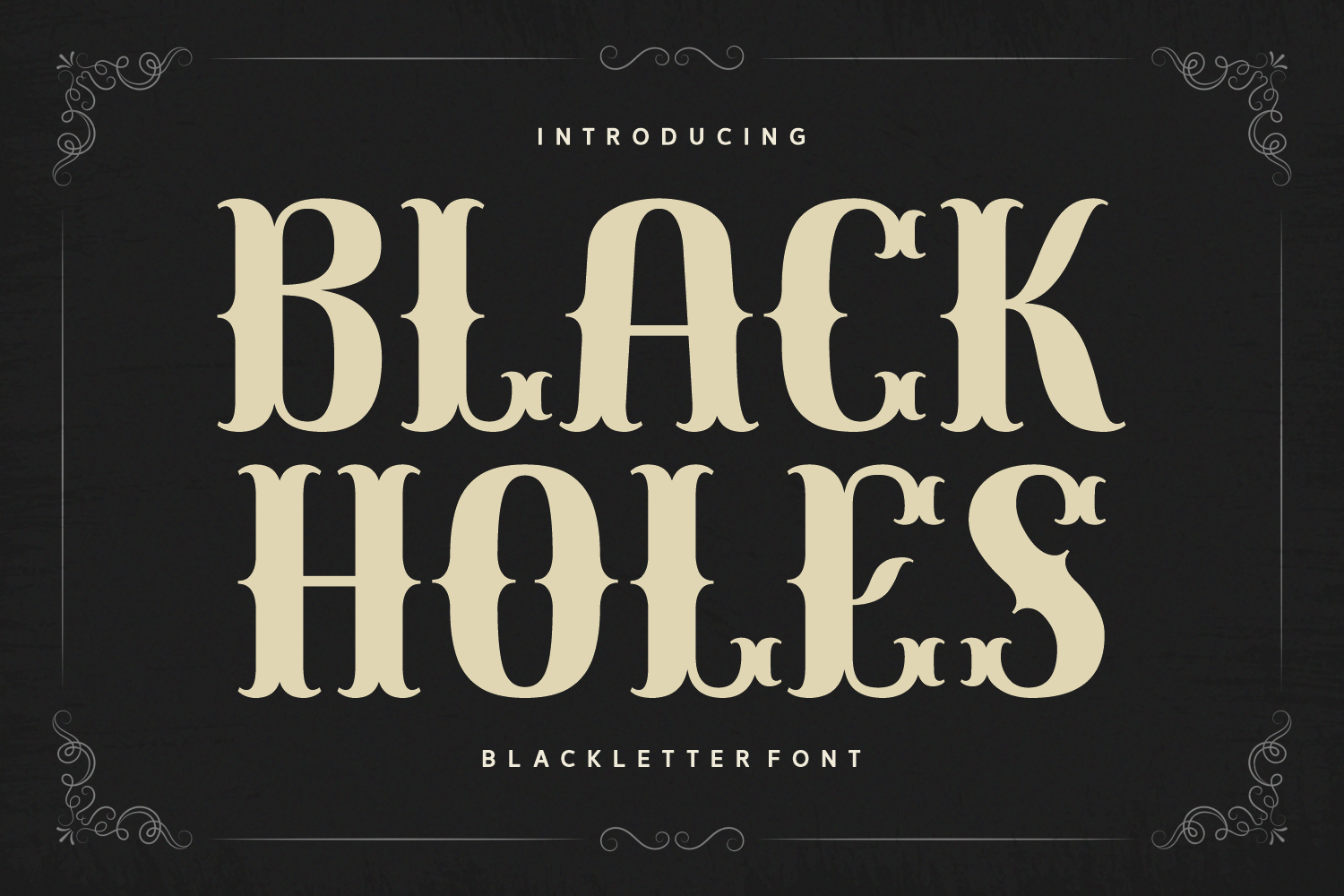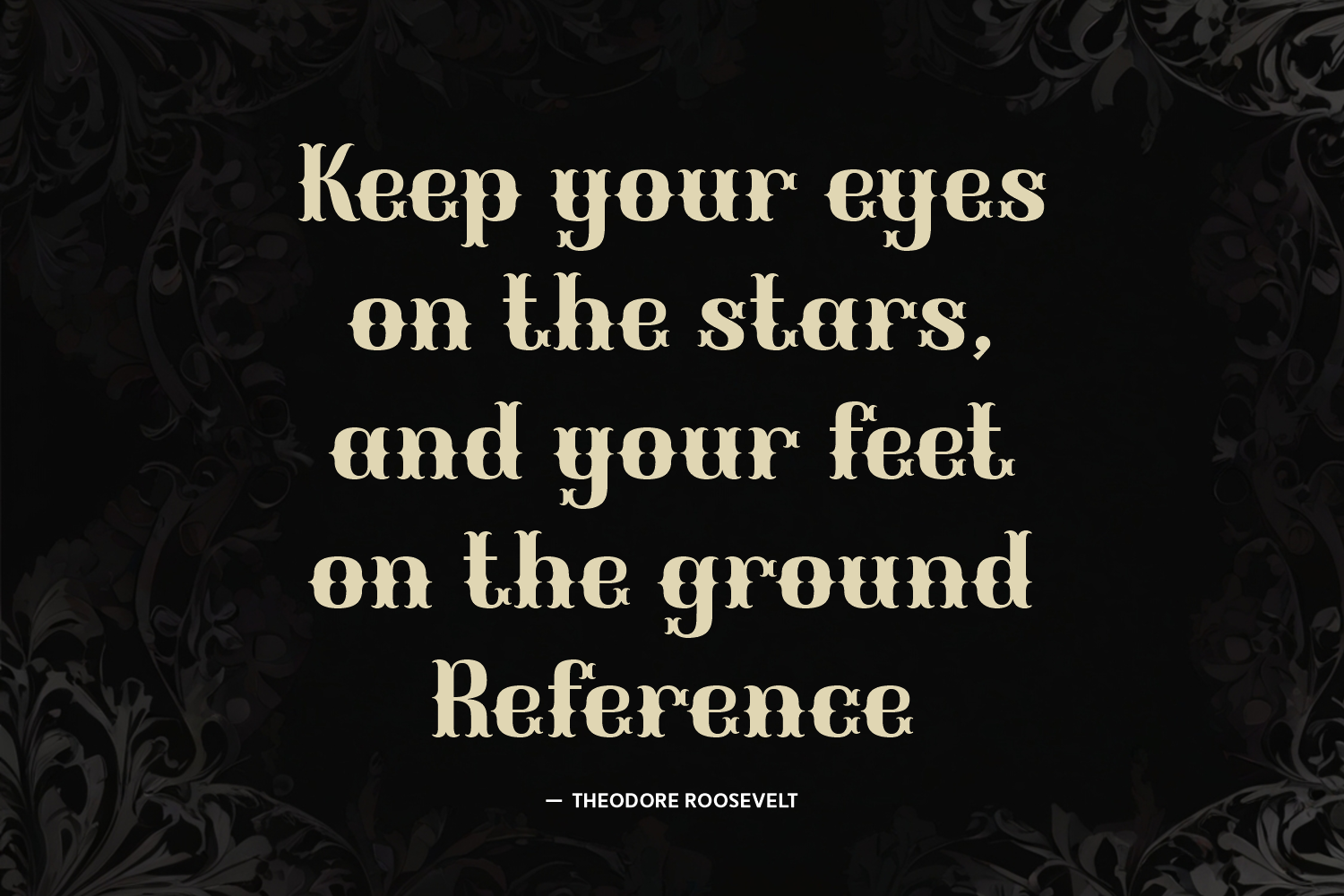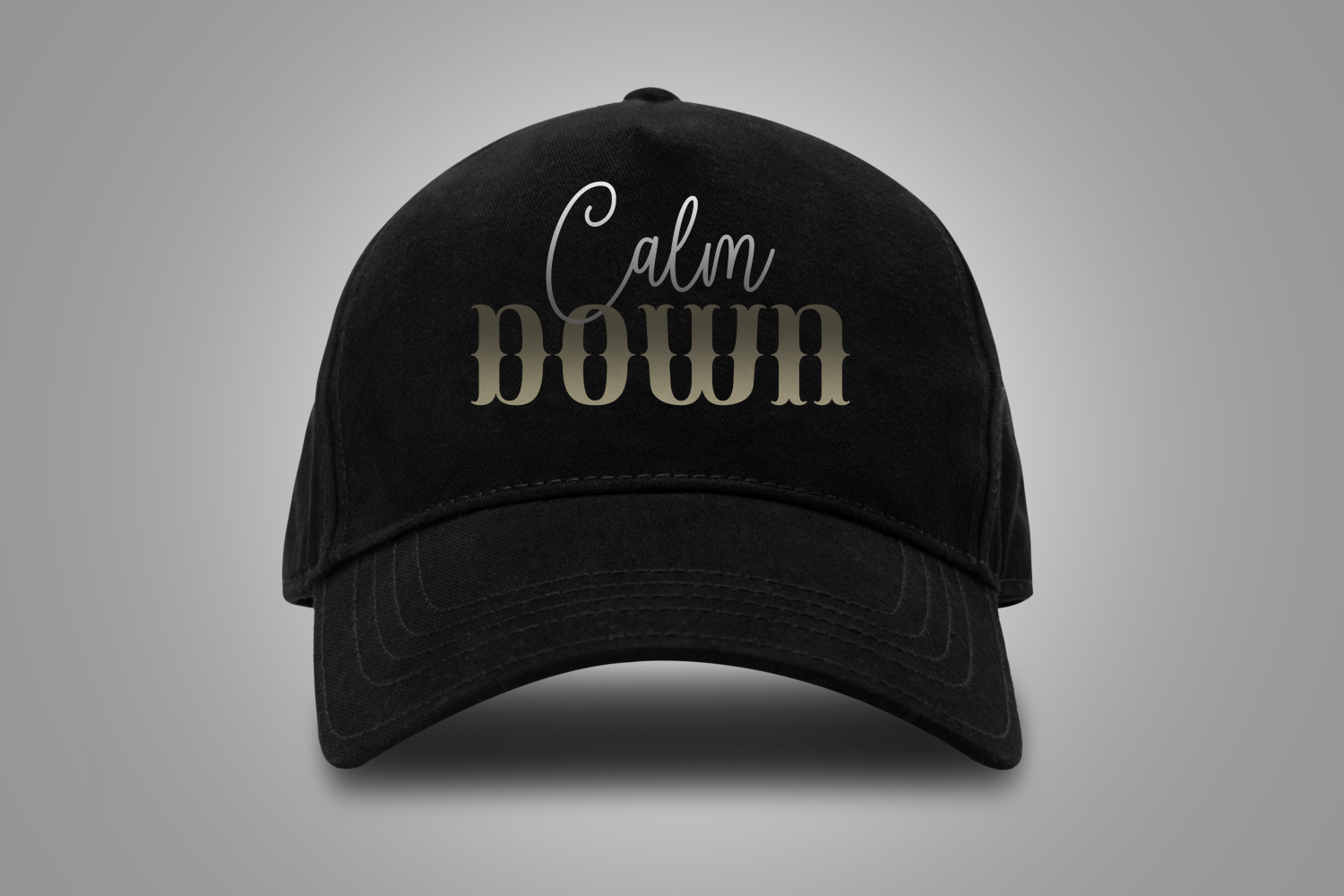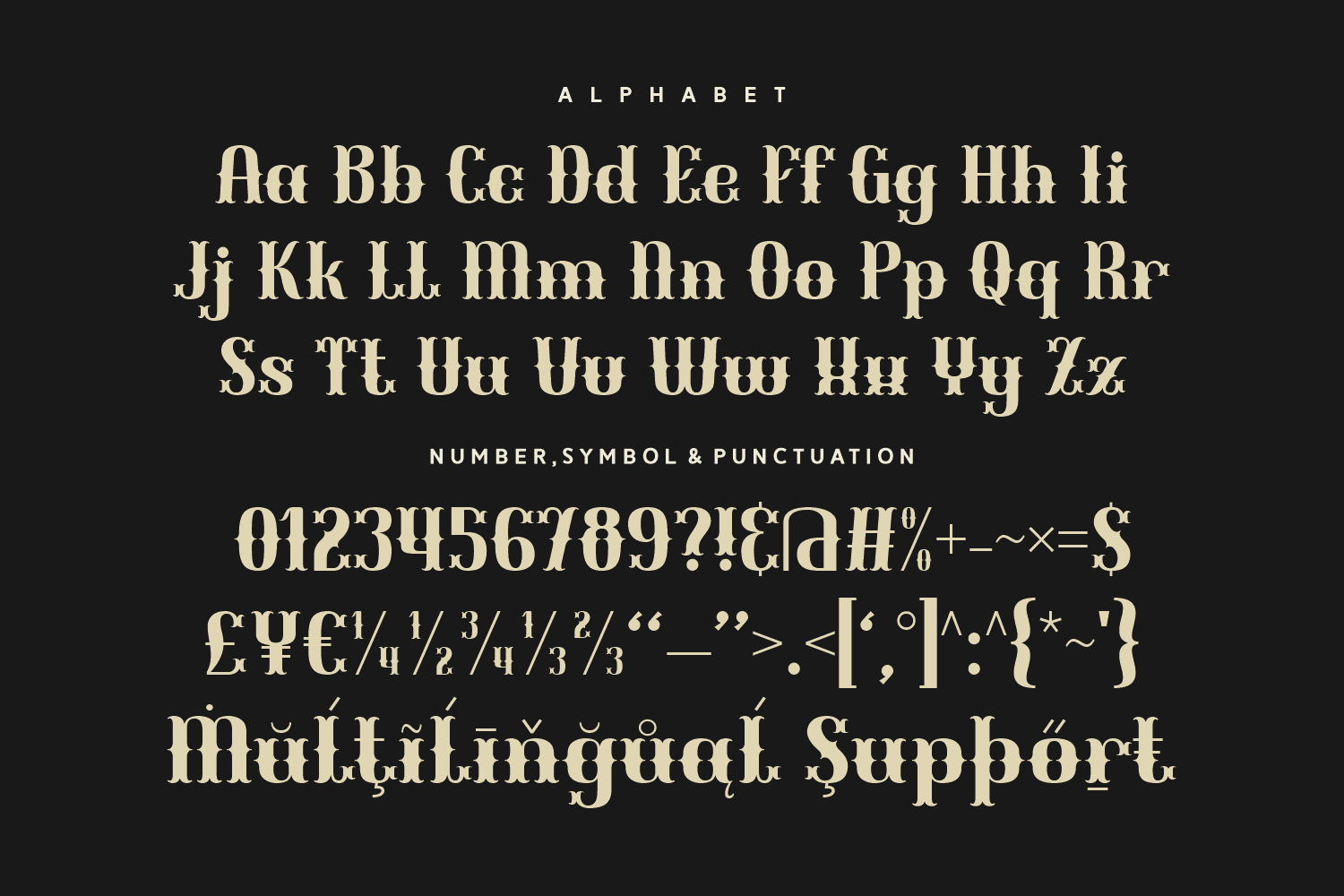
Black Holes is a bold blackletter font with a whimsical twist, combining gothic roots with playful flourishes. Its thick, rounded forms and ornate terminals give it a dramatic yet approachable look, making it ideal for vintage-inspired logos, posters, album covers, and dark-themed branding with a quirky edge. Black Holes captures attention with its strong presence and unique personality.